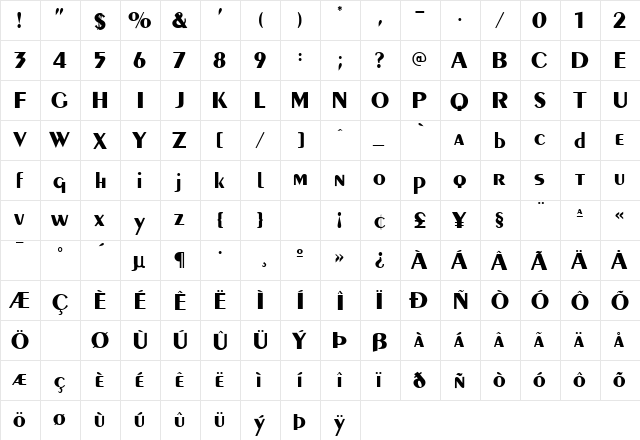
Penultimate Regular
Design Context for Penultimate Typeface
Penultimate is a composed and adaptable typeface that performs quietly and consistently across a wide range of design contexts.